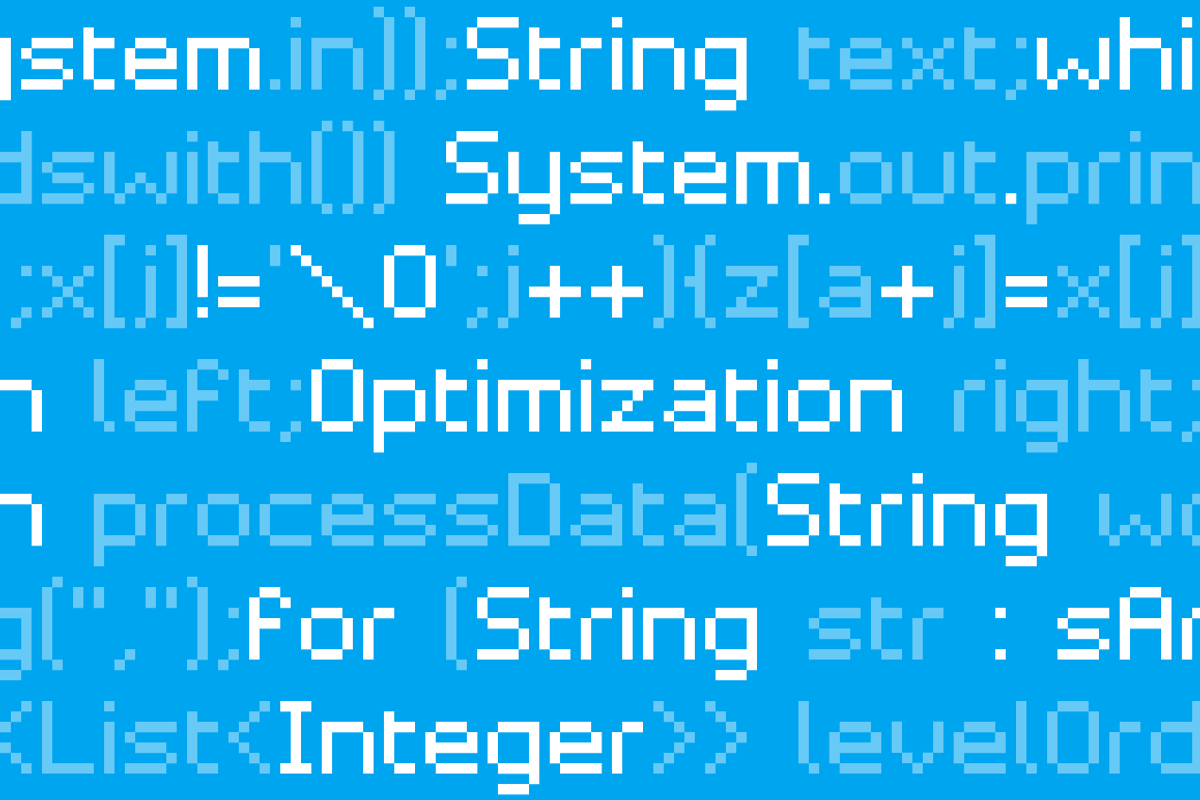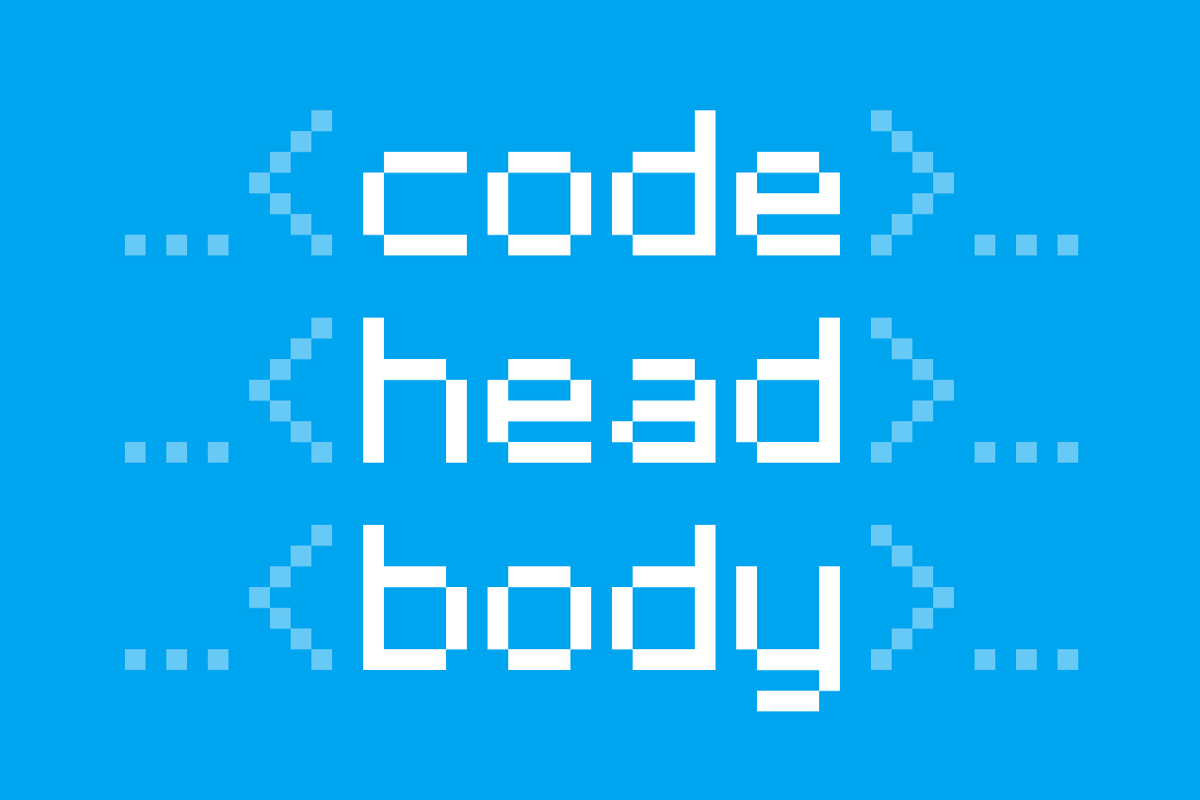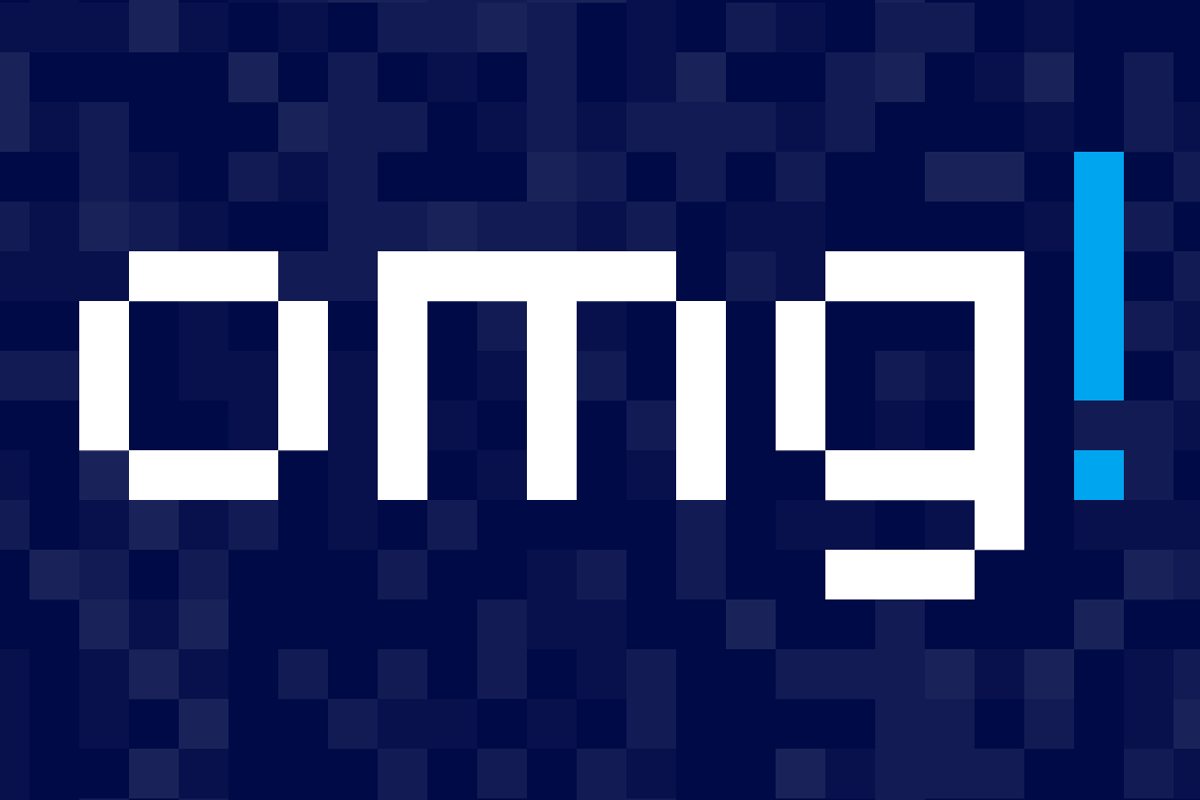
Pixelar Font Family
Pixelar Font Family by Graviton Font Foundry is a font selected for branding, posters, packaging, typography.
Why Pixelar Font Family is worth a look
Pixelar Font Family by Graviton Font Foundry fits naturally into Branding, posters, packaging, typography.